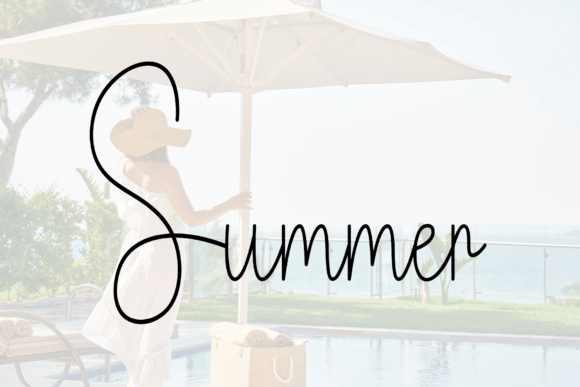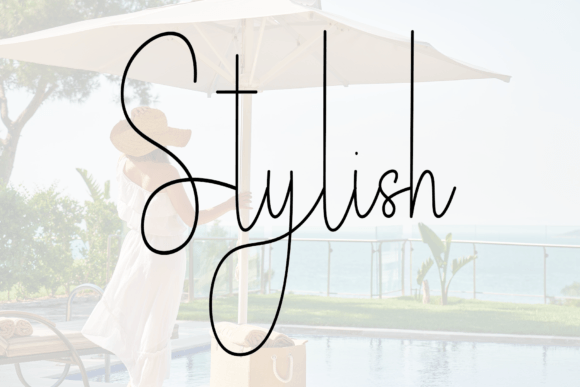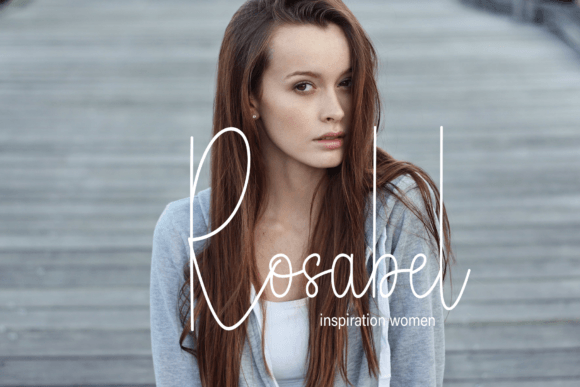
Introduction to Holiday Resort Font
One such resource is the Holiday Resort Font, a sweet and friendly handwritten font that’s perfect for adding a touch of whimsy to any design project. With its high quality and transparent background, this font is a valuable addition to any designer’s toolkit. And the best part? It’s available for free download, making it accessible to designers of all levels.
Key Features of Holiday Resort Font
- High-quality design resource with a unique and creative project theme, perfect for any holiday or resort-related design project.
- Transparent background, allowing for seamless integration with any design or background.
- Unique characteristics include a tropical and vibrant aesthetic, making it perfect for designs related to travel, leisure, and relaxation.
Honest Review: Holiday Resort Font
I recently stumbled upon the Holiday Resort Font, a free download that has been a game-changer for my creative project. As a designer, I’m always on the lookout for high-quality design resources that can elevate my work, and this font definitely delivers.
- ✨ High-quality typography: The font is crisp and clear, making it perfect for headings and titles.
- ✨ Versatile design: It’s suitable for a wide range of creative projects, from travel brochures to restaurant menus.
- ✨ Transparent background: This feature allows for seamless integration with background images and textures.
- ⚠️ Limited character set: The font only includes a limited set of characters, which may be a hindrance for projects requiring extensive typography.
- ⚠️ No bold or italic options: While the font is clear and legible, it lacks the bold and italic variations that some designers might find essential.
Overall, I’m impressed with the Holiday Resort Font. Its high-quality design and transparent background make it an excellent addition to my design resource library. While it may have some limitations, I believe it’s a great choice for designers working on travel-themed or beach-inspired projects.
The Holiday Resort Font is perfect for:
Alternatives to Holiday Resort Font